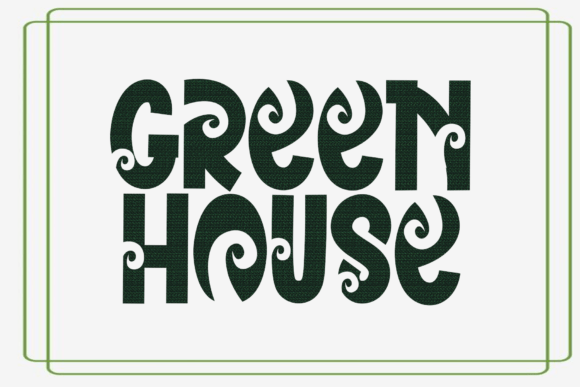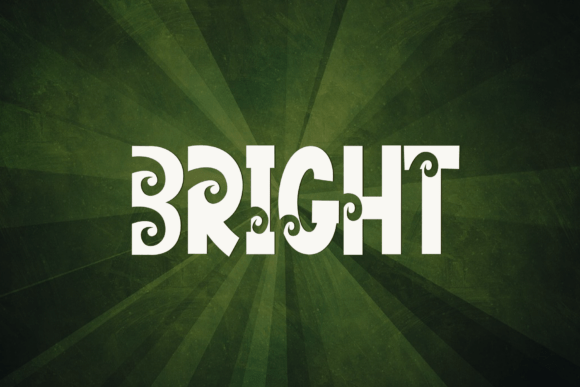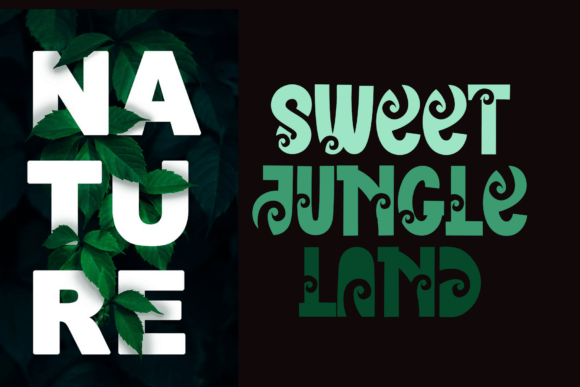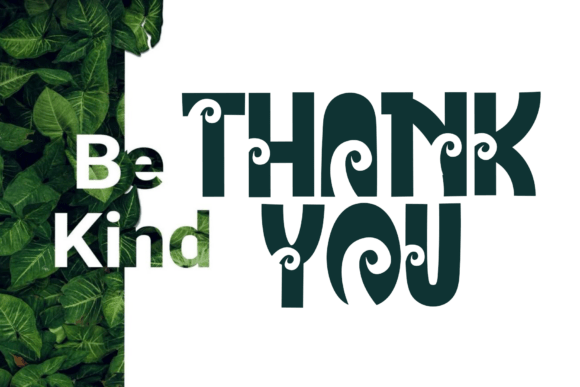
Introduction to Natural Memory Font
Natural Memory is a cool and unique display font.
Add it to your creative projects and enjoy the results .
Key Features of Natural Memory Font
Why Choose Natural Memory Font?
Natural Memory Font offers exceptional quality and versatility, making it a valuable addition to your design toolkit. Whether you’re creating for personal projects or commercial use, Natural Memory Font delivers professional results.